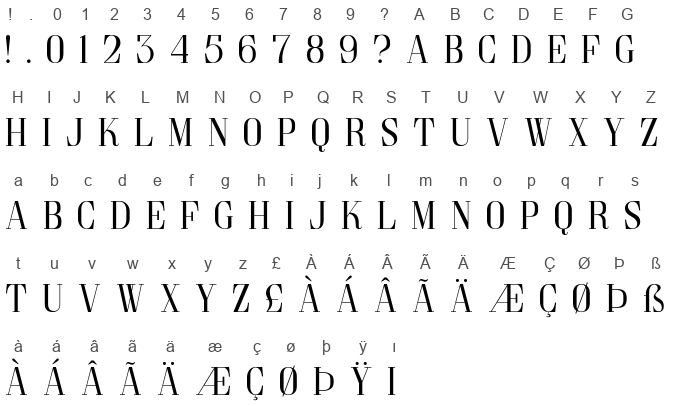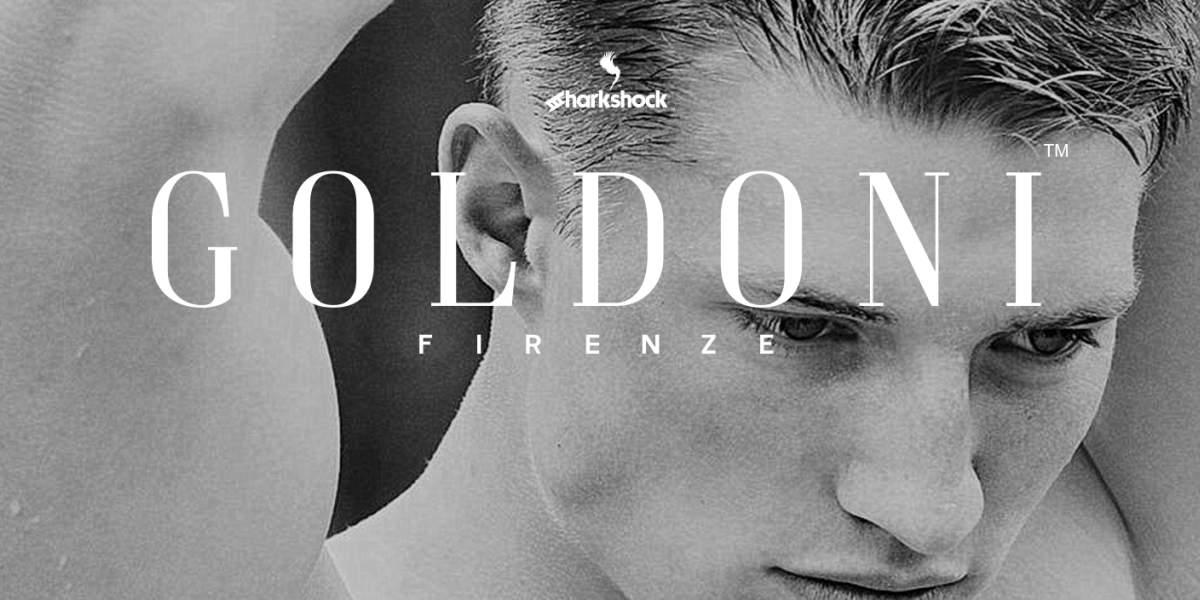
The Goldoni font is an elegant and classic display serif typeface, suggesting a theme of luxury or high-end fashion. The characters are tall and slender with fine strokes, giving the font a sophisticated and minimalist appearance. Its aesthetic is strongly reminiscent of neo-classical or modern serif styles. The font is presented in an initial-caps style, using all uppercase letters for a clean and impactful look.
Goldoni